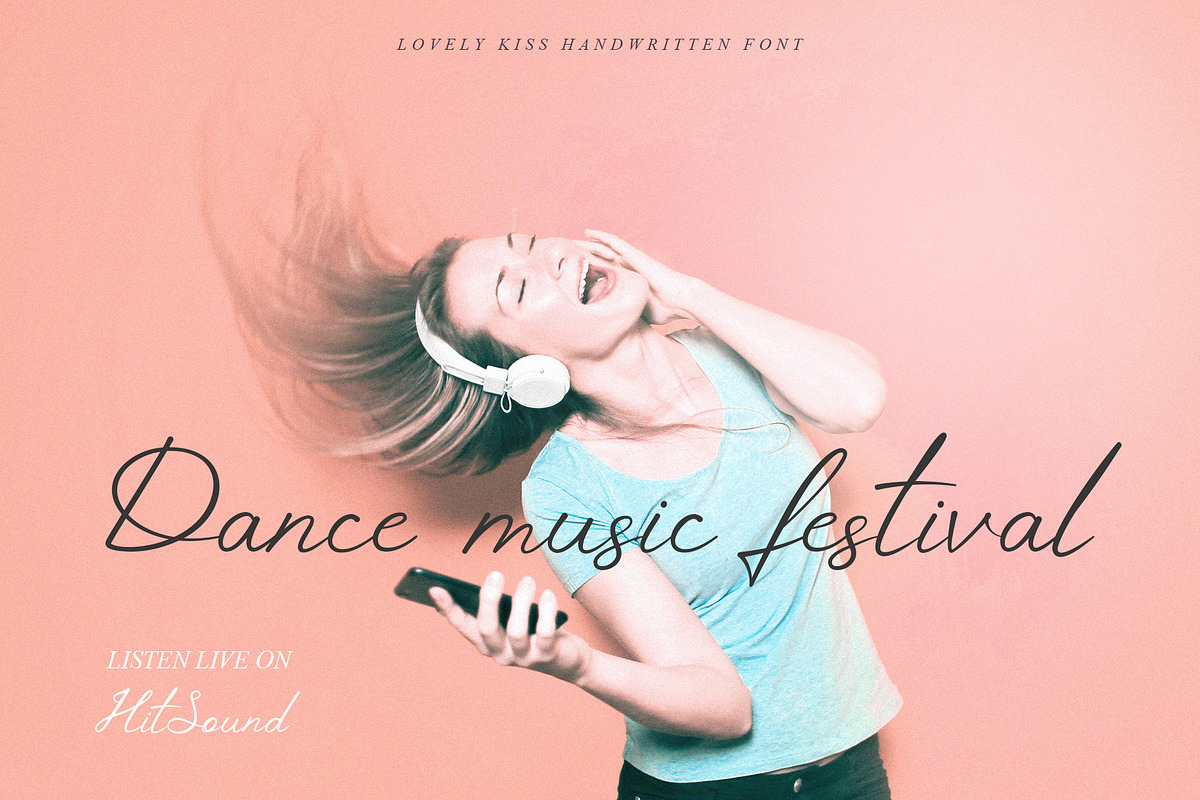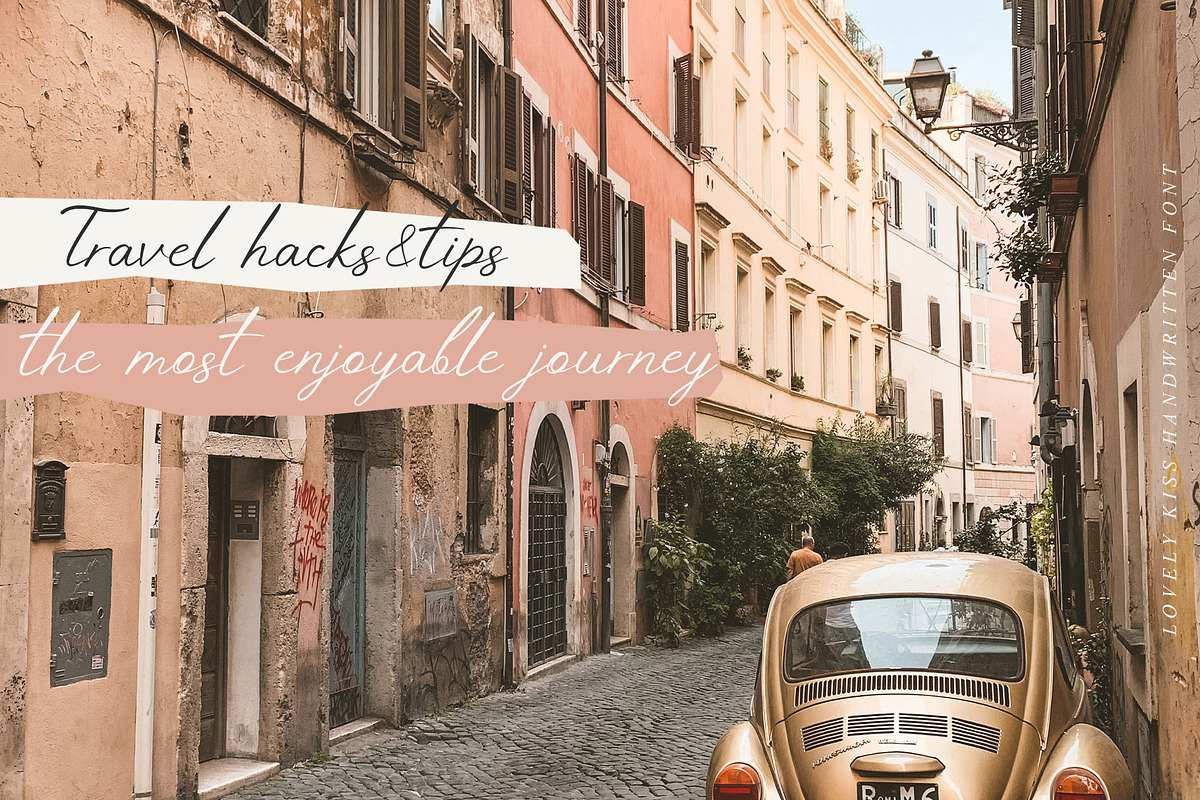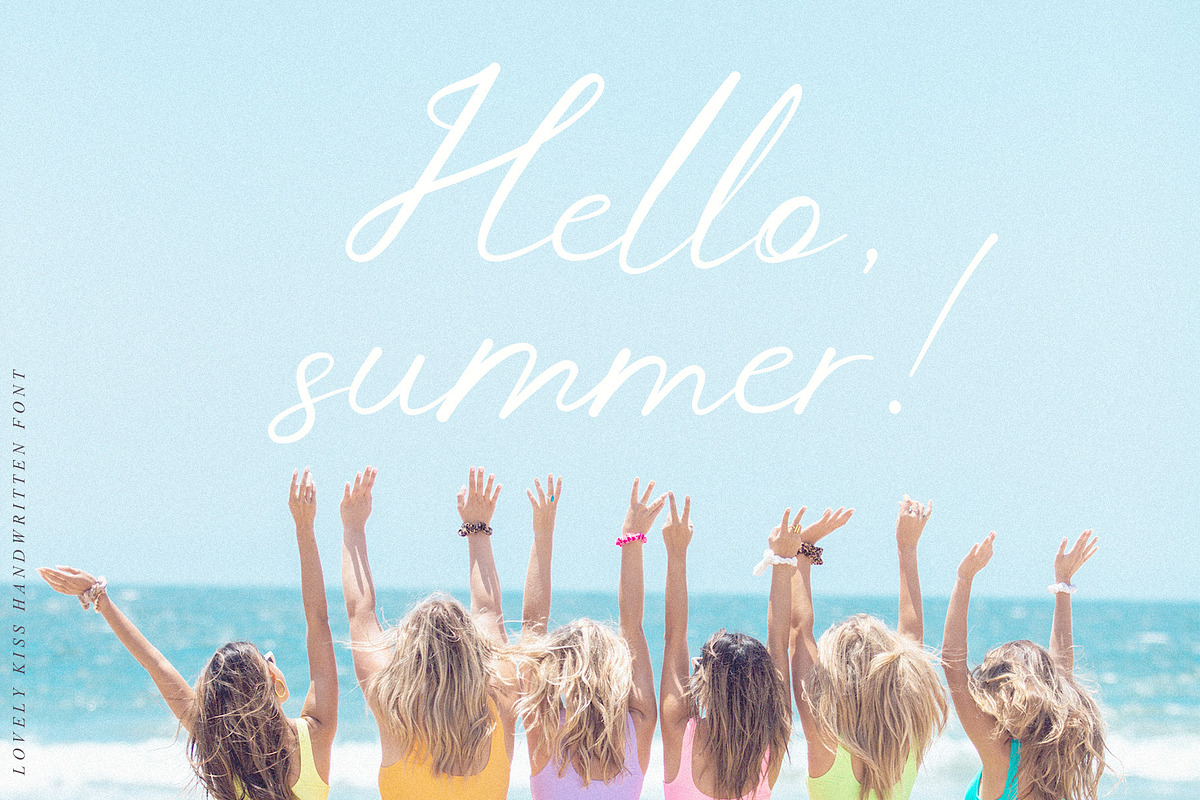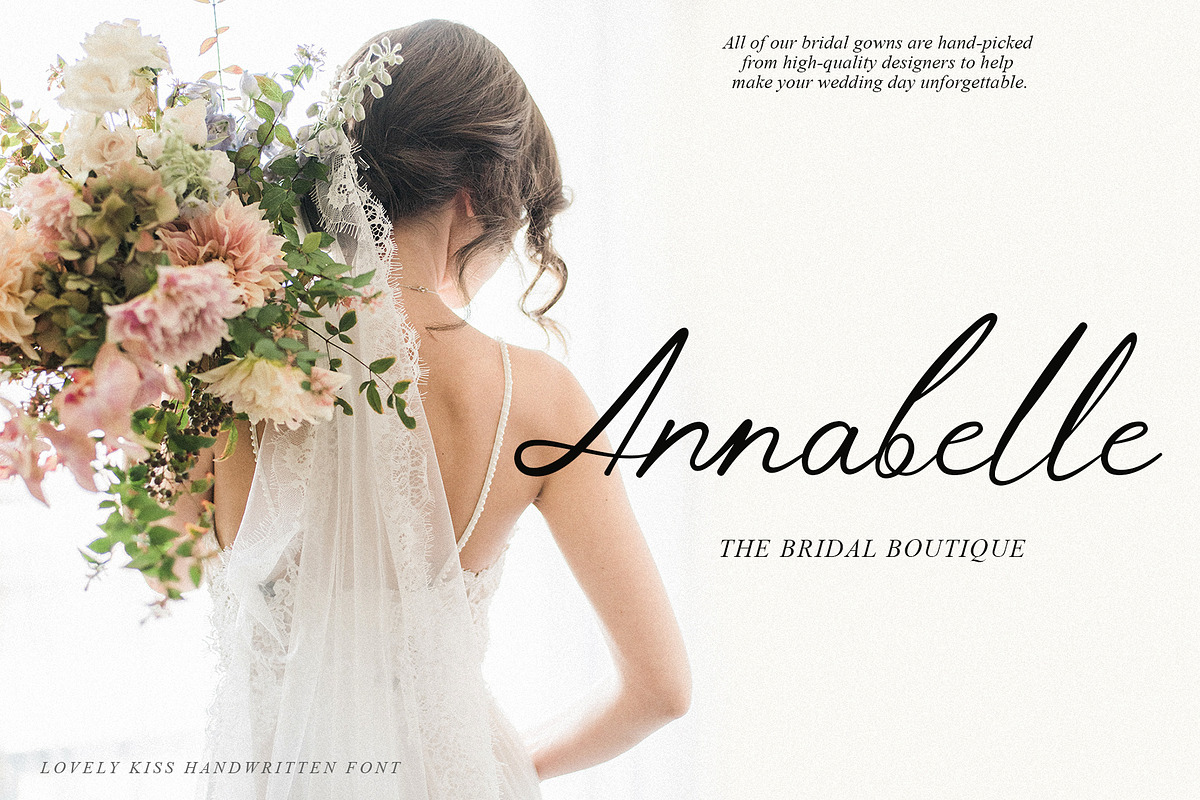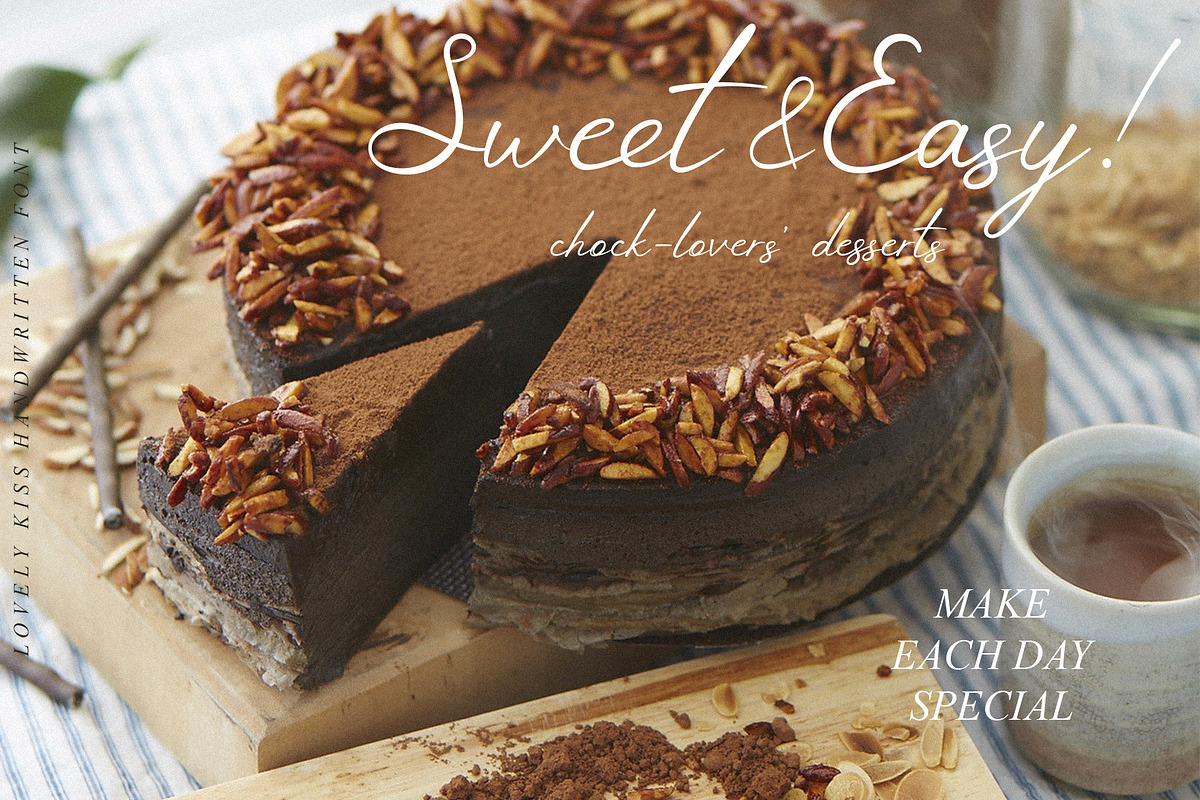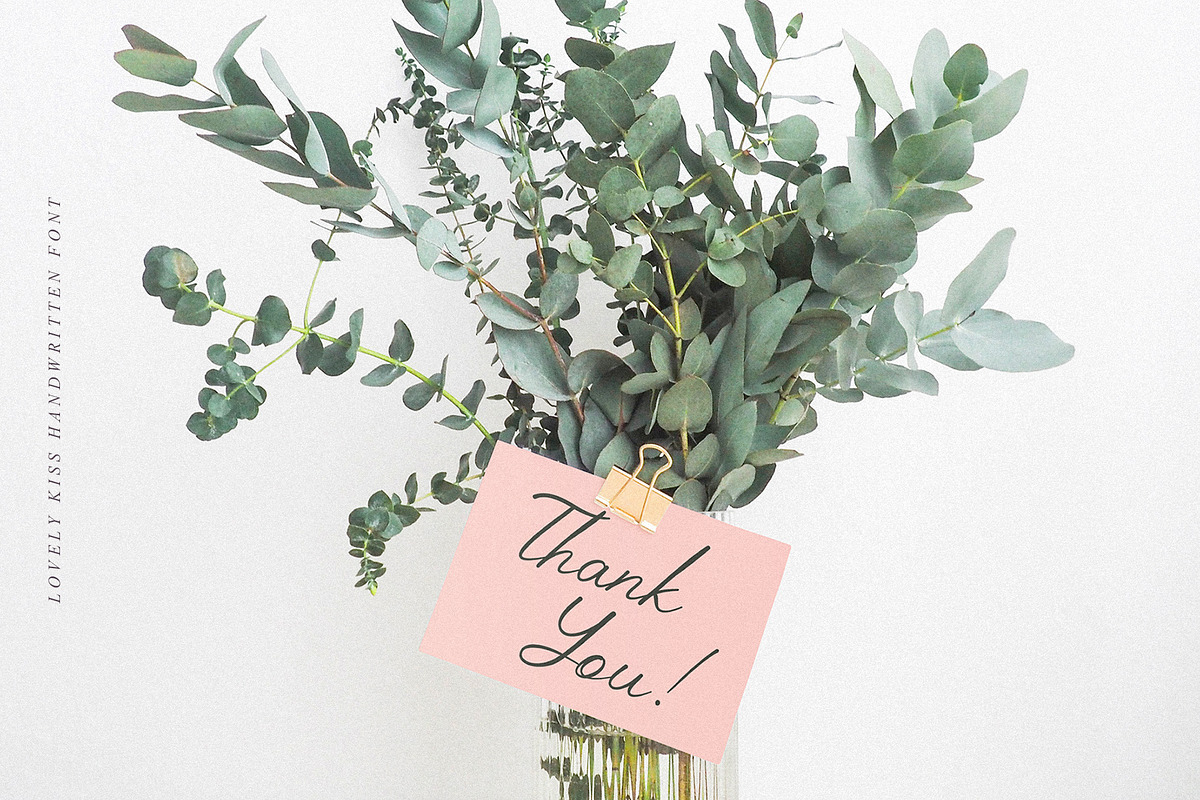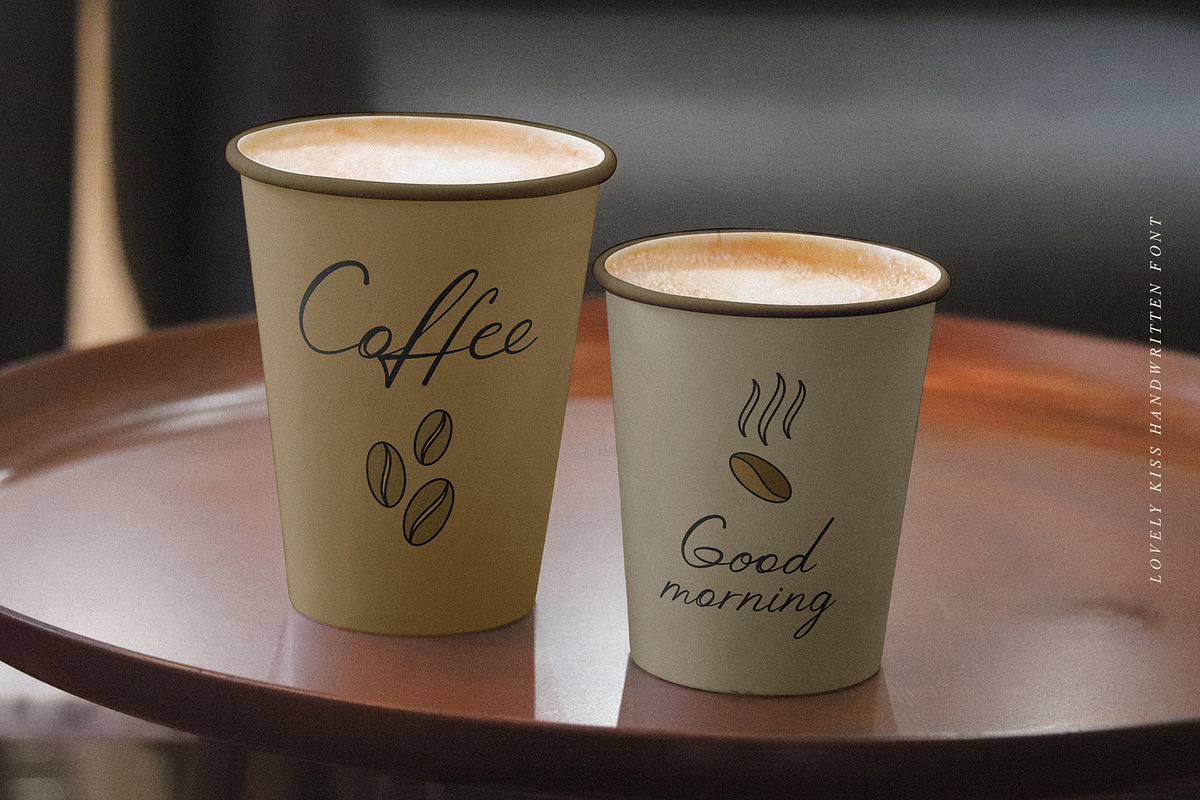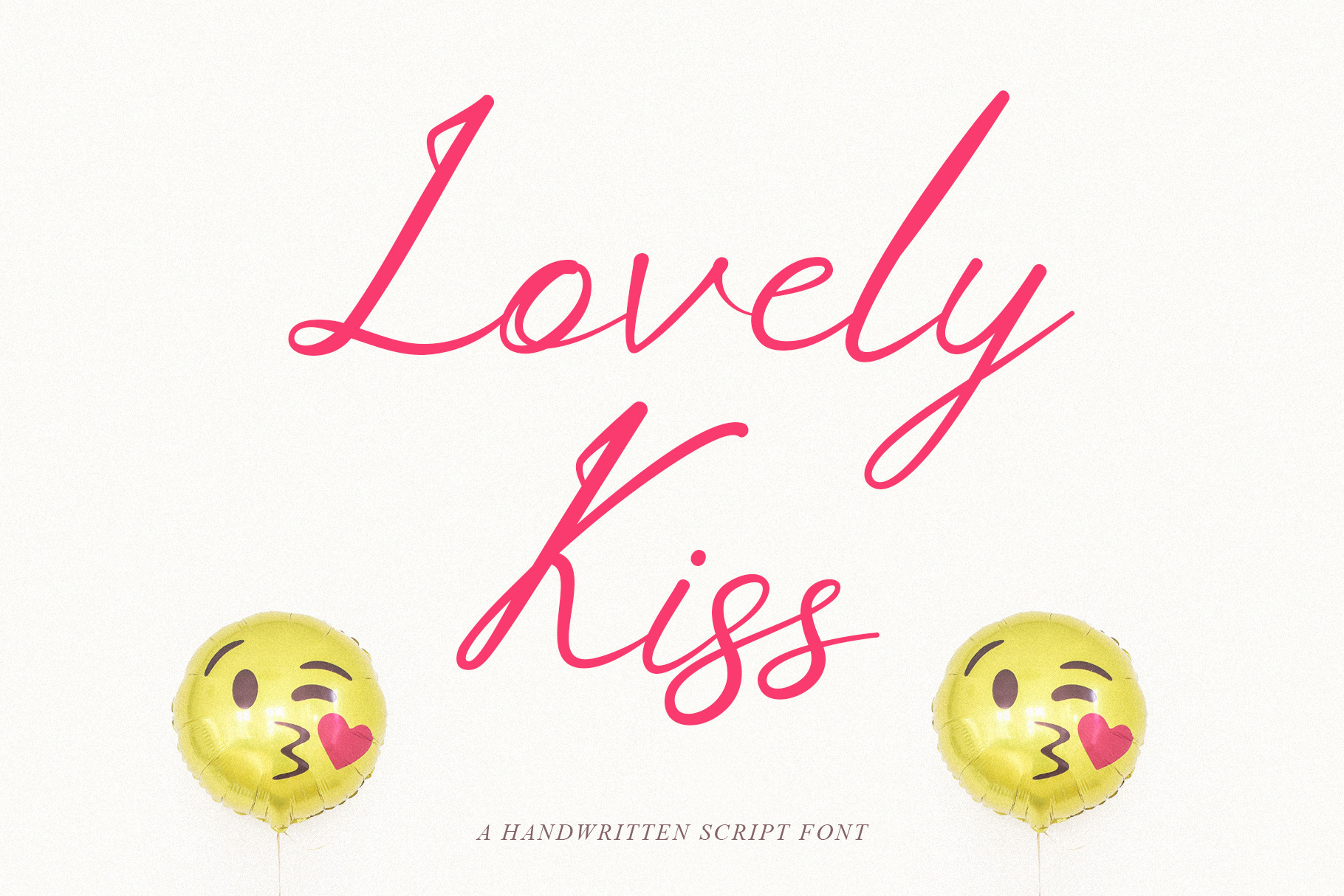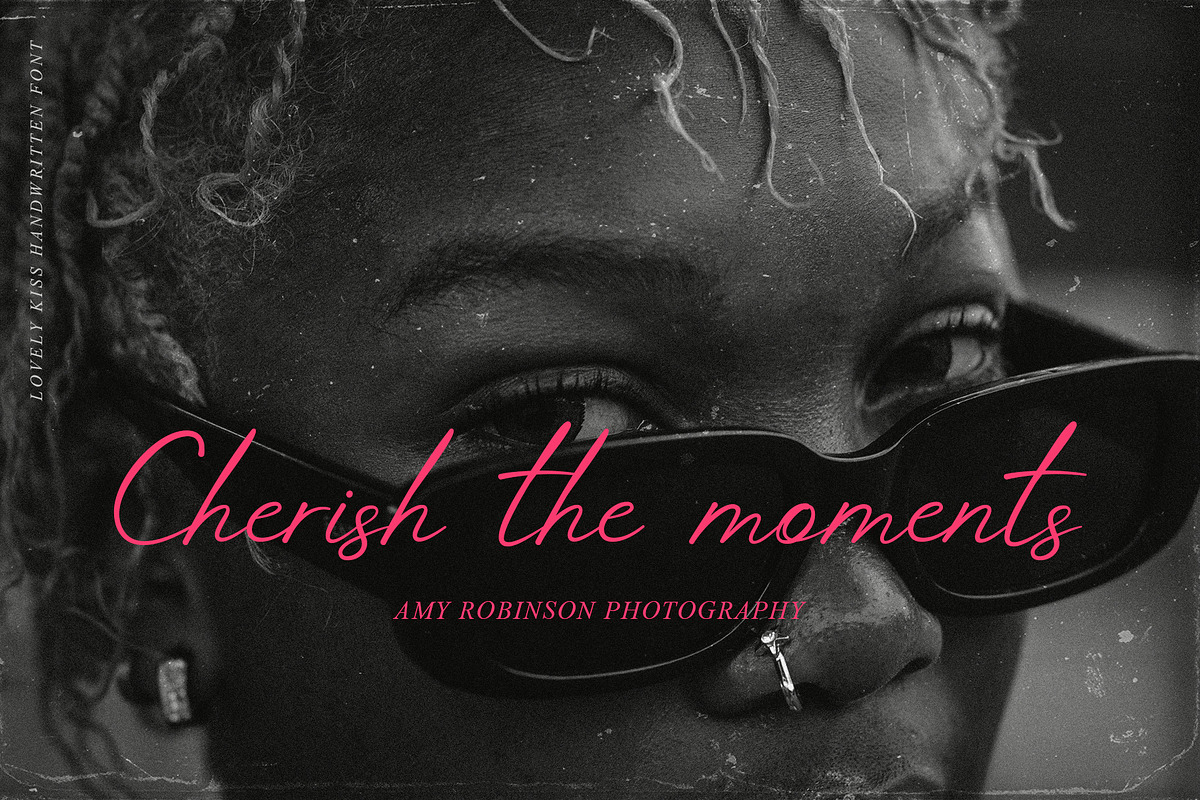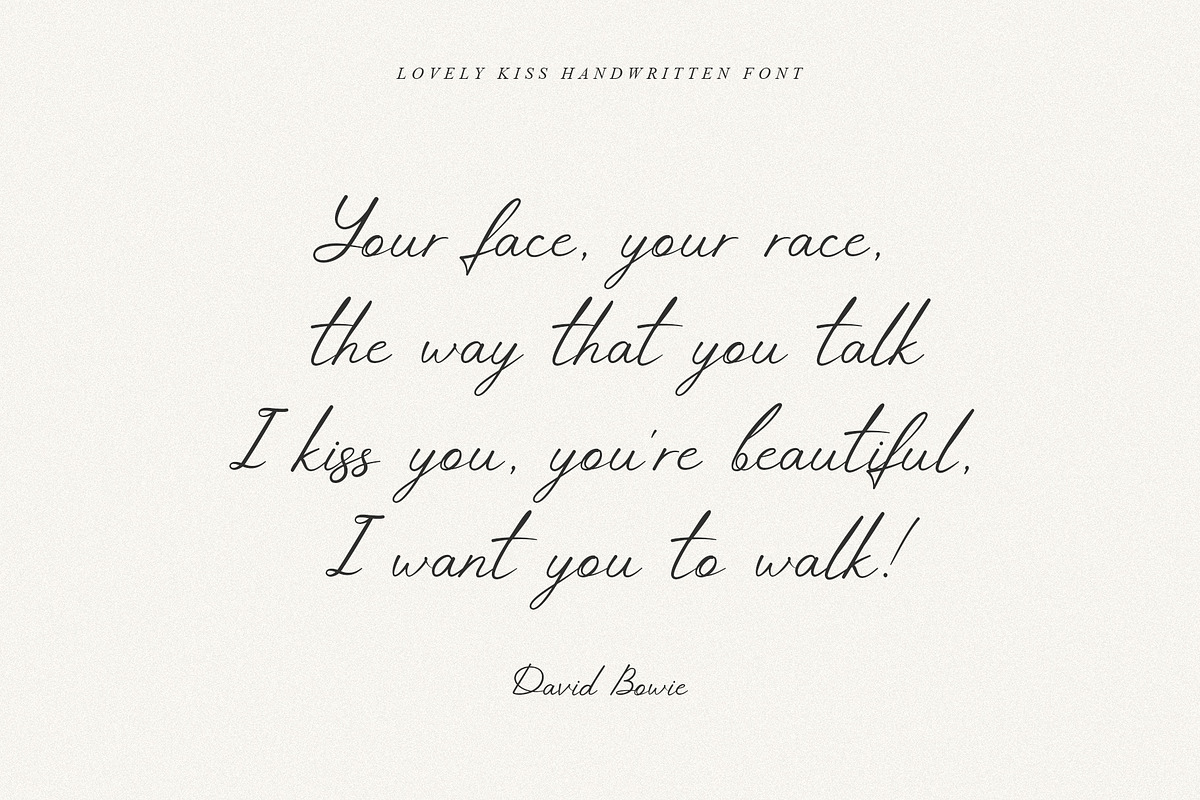
Lovely Kiss script font
Lovely Kiss is a handwritten classy script font. It includes full set of uppercase and lowercase basic characters, multilingual symbols, numerals, punctuation and ligatures (check the previews in order to see them all).
It's works perfectly for wedding stationery, elegant branding, book cover designs, packaging, album covers, handwritten quotes, greeting cards, social media posts, and many more.